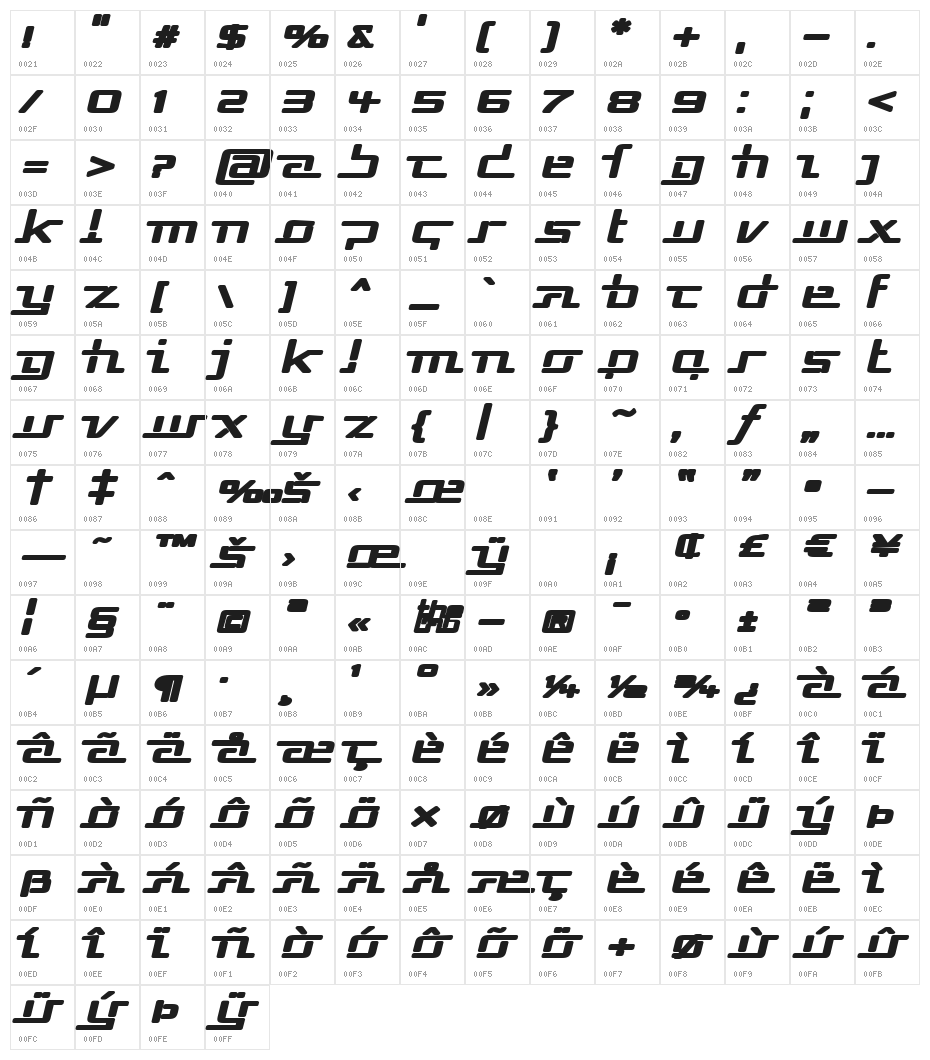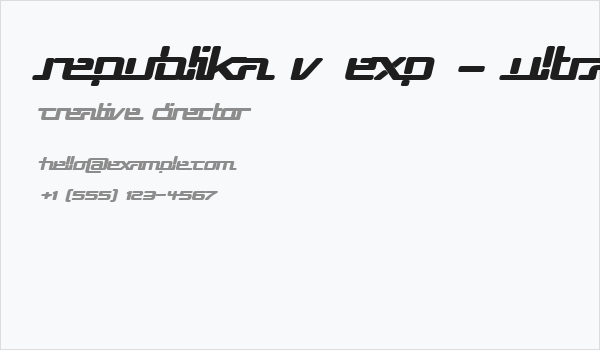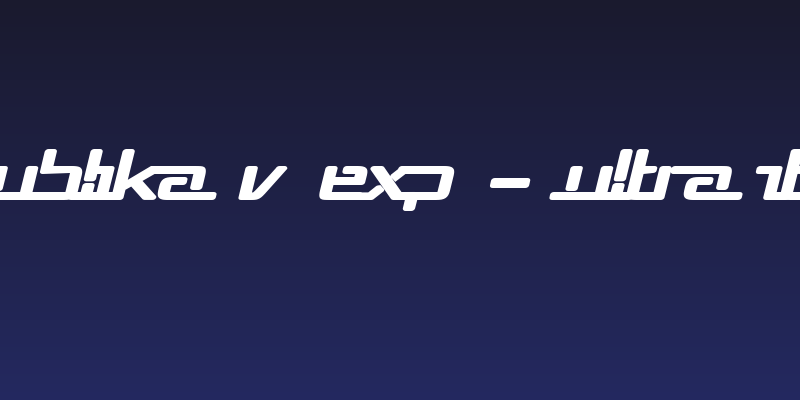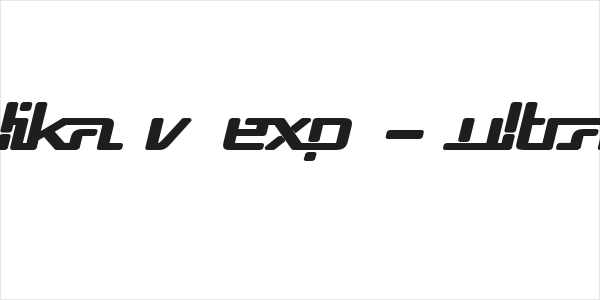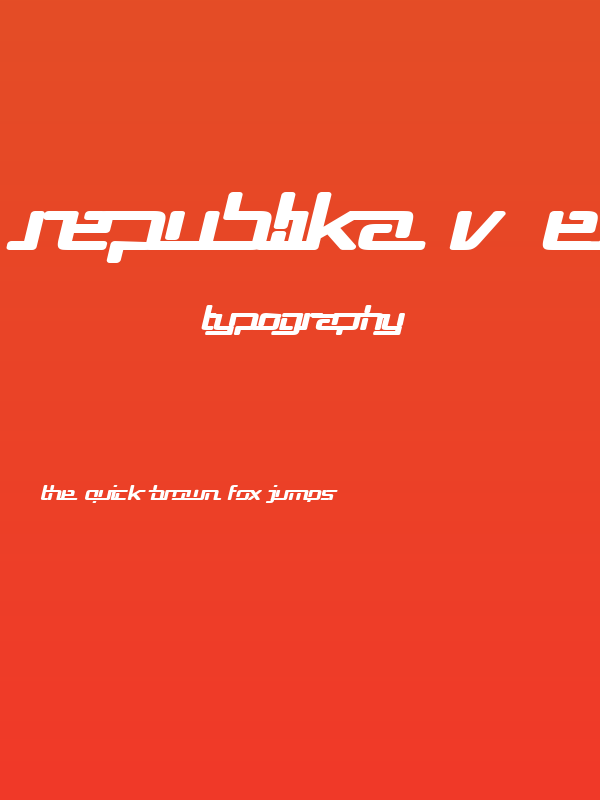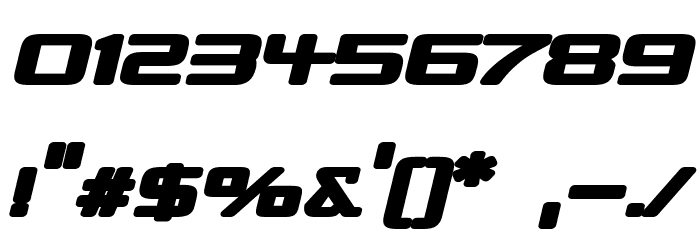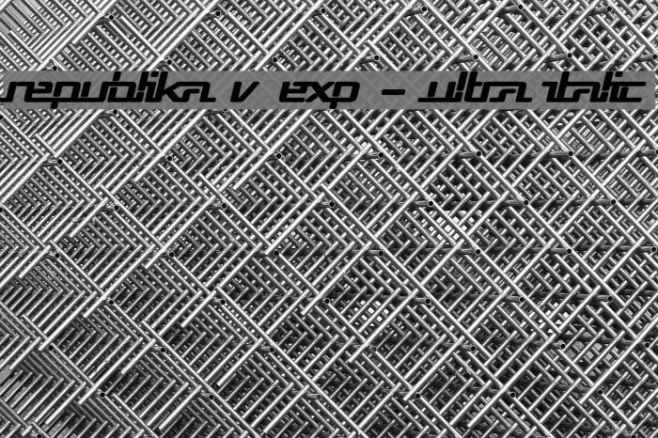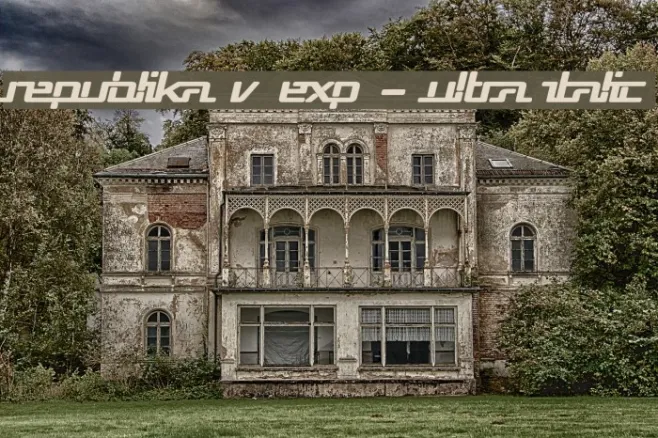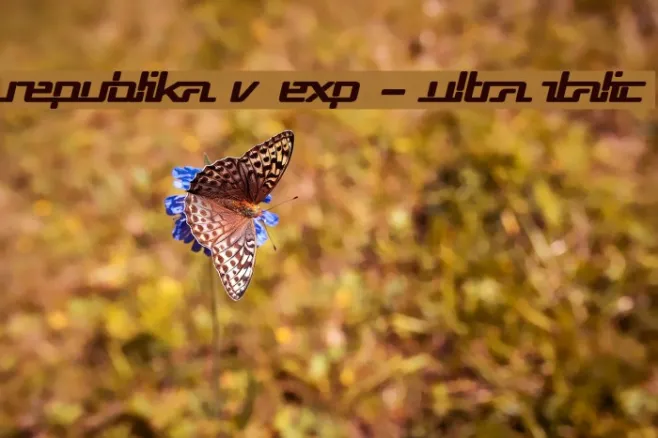
Republika V Exp - Ultra Italic Font
✎ Futuristic
Republika V Exp - Ultra Italic Description
This font features a futuristic and dynamic design with a strong italic slant, giving it a sense of motion and speed. The characters are bold and wide, with a consistent stroke thickness that provides a solid and impactful appearance. The geometric shapes and sharp angles contribute to its modern aesthetic, making it suitable for projects that require a cutting-edge look. The uppercase and lowercase letters maintain a uniform style, while the numerals and special characters are designed to complement the overall theme. This font stands out with its unique style, perfect for making a bold statement.
| Categories | Futuristic |
| Width | Expanded |
| Use Case | Logos, Headlines, Posters |
| Proposed Projects | Ideal for technology branding, sports team logos, video game titles, and sci-fi themed designs. |